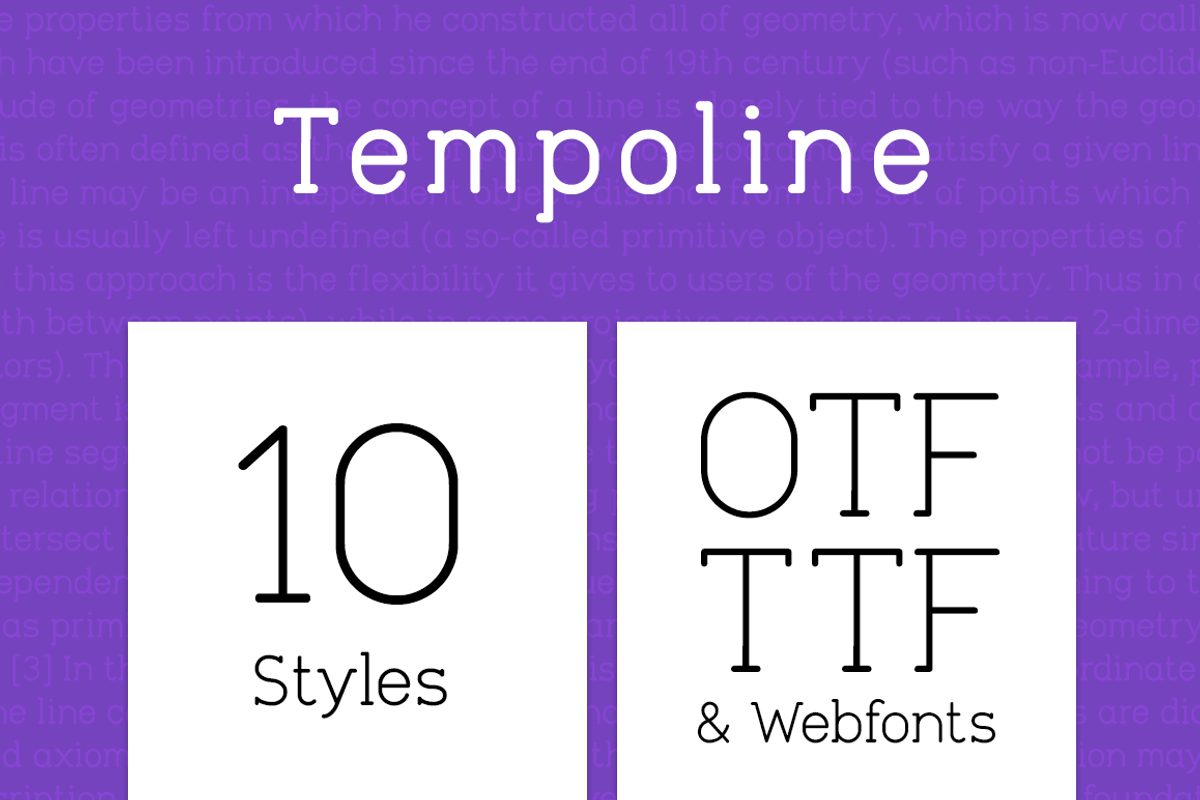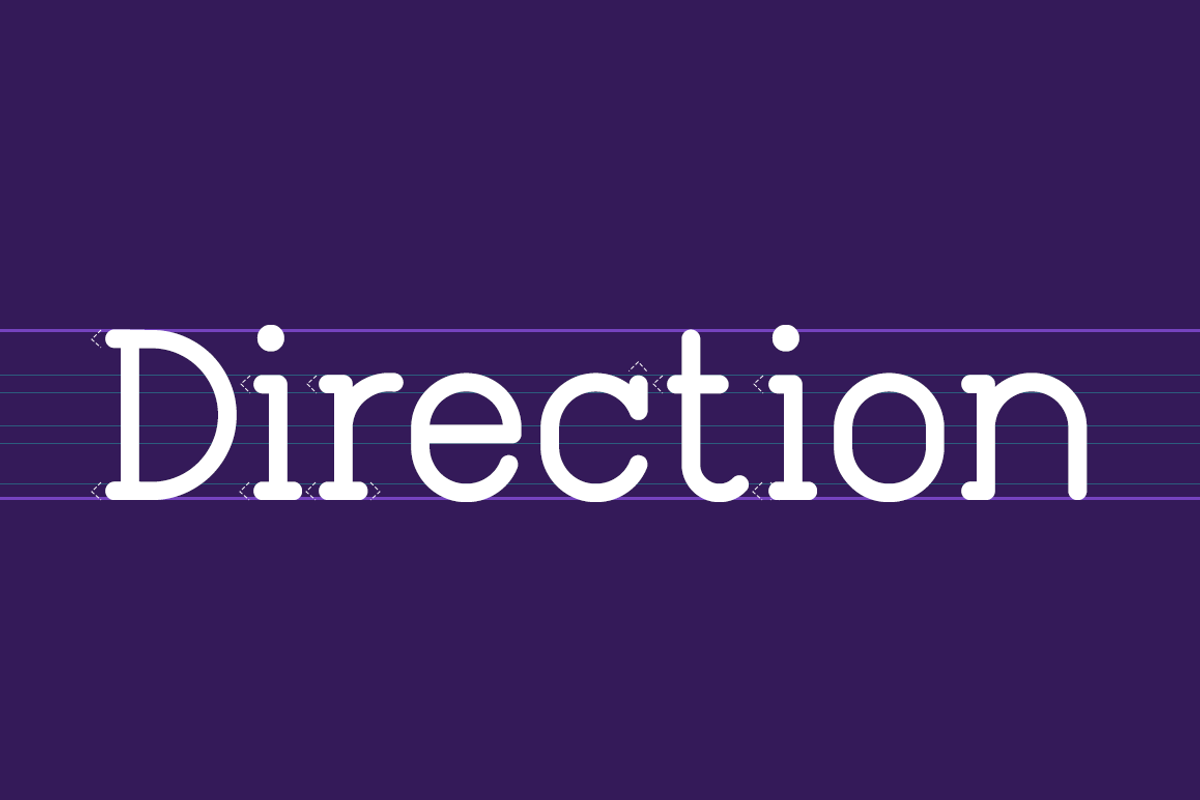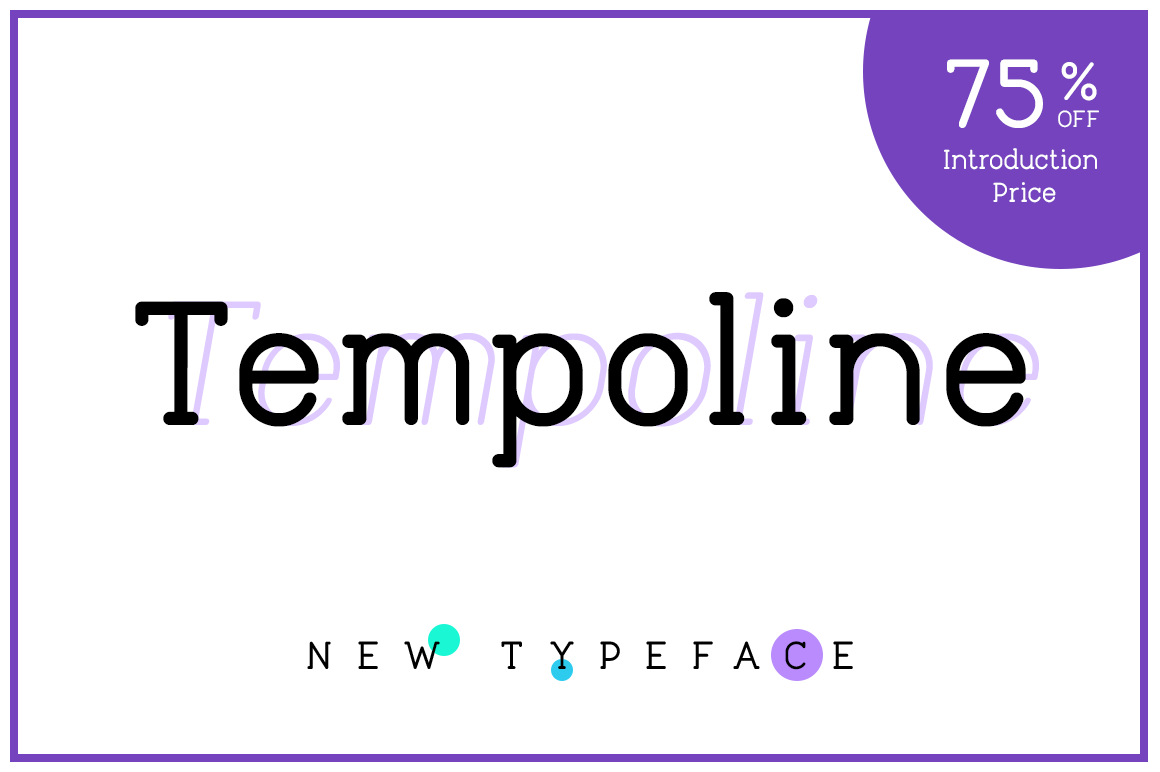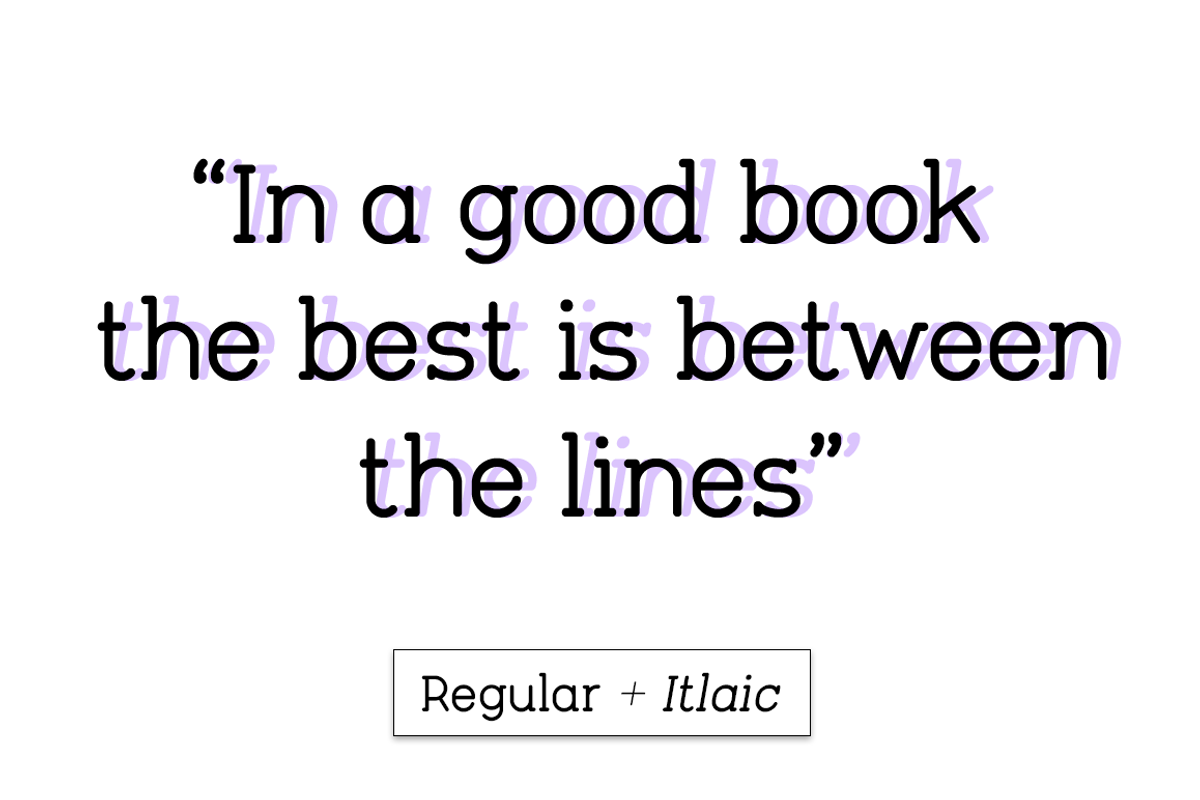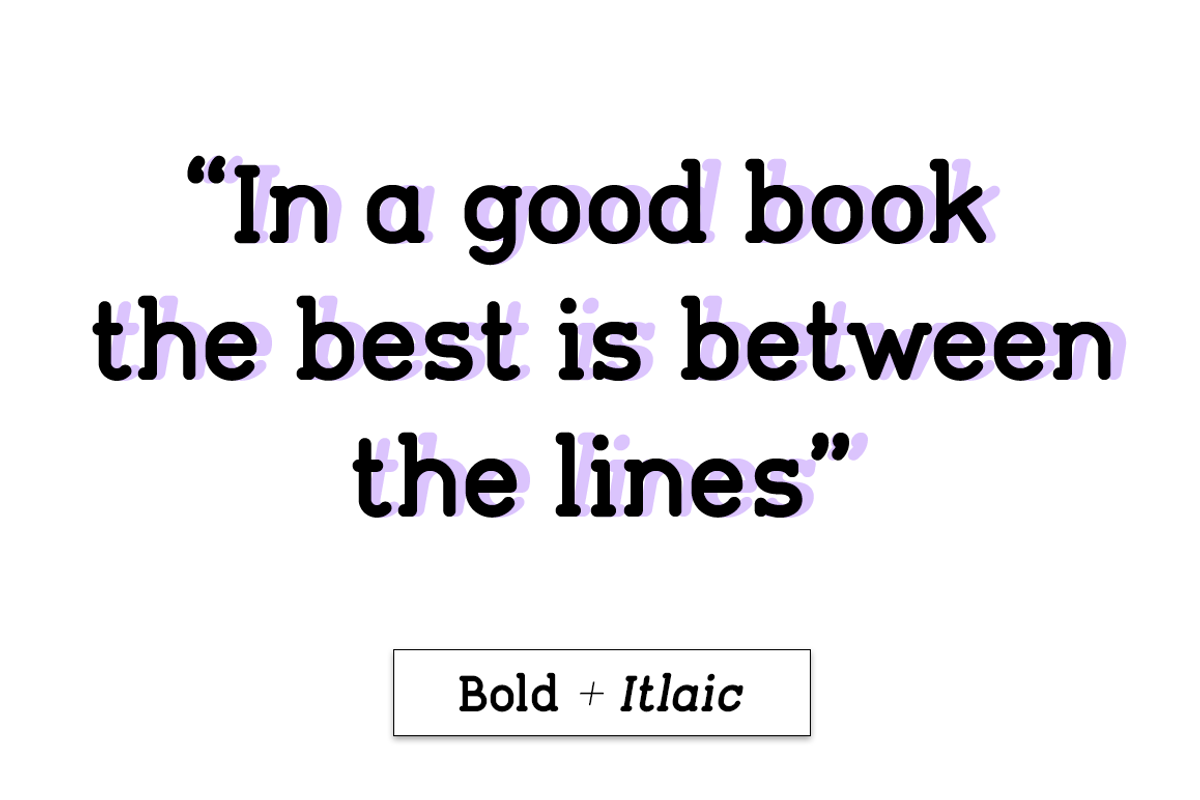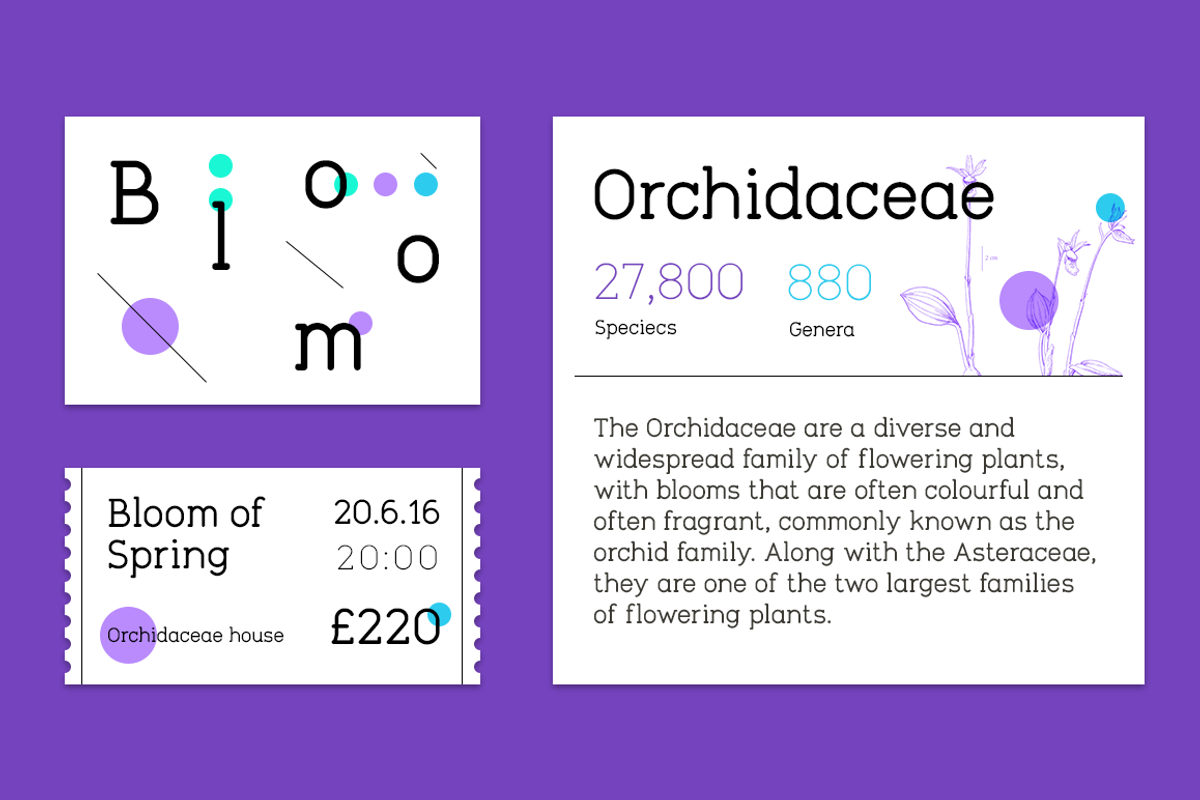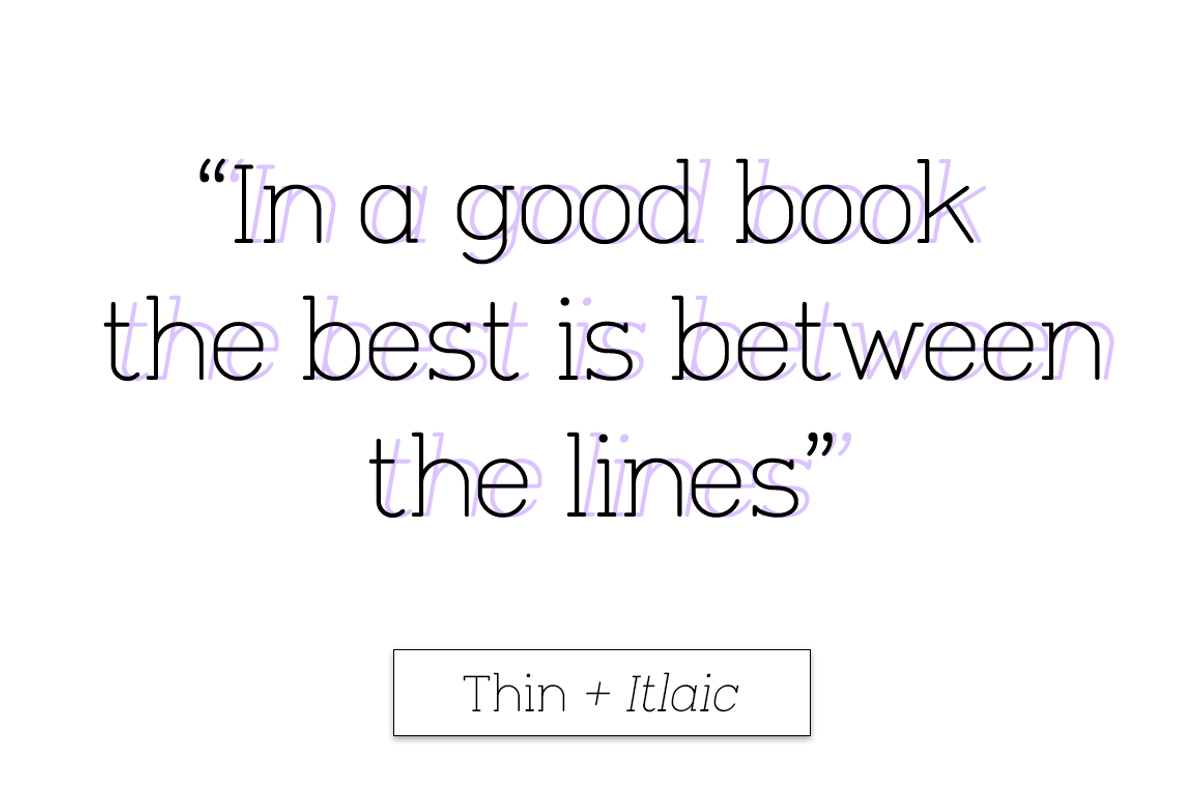
Tempoline is a sans serif deeply inspired by monospace. It is the optimal hybrid, with a simple monolinear structure, a built in sense of flow and and a friendly nostalgic feel. With it’s unique character and presence it works great in any project: headlines, quotations, logos, posters, magazines, brochures, web, presentations, badges and the list just goes on. It does this so well due to it’s overall pleasant vibe & quality.
Tempoline has 10 Styles: THIN / THIN ITALIC / LIGHT / LIGHT ITALIC / REGULAR / ITALIC / MEDIUM / MEDIUM ITALIC / BOLD / BOLD ITALIC. The pack includes complete OTF and Web Fonts (all EOT, SVG, TTF, WOFF are included).